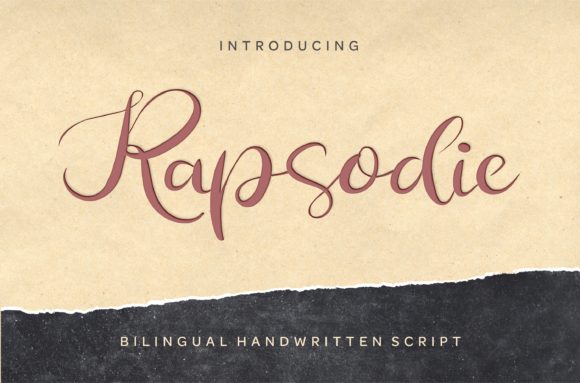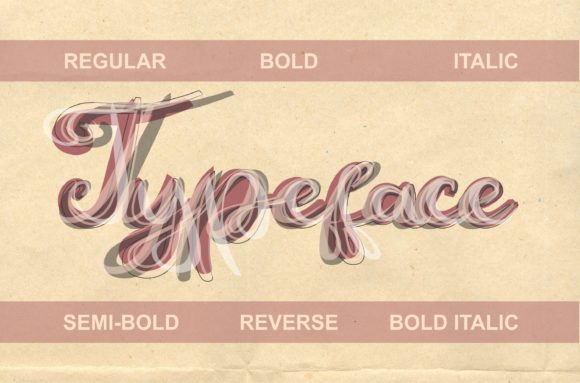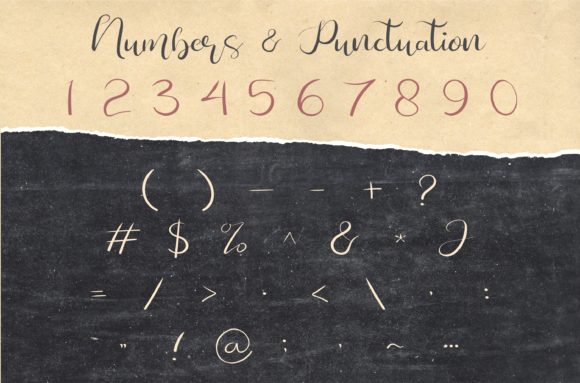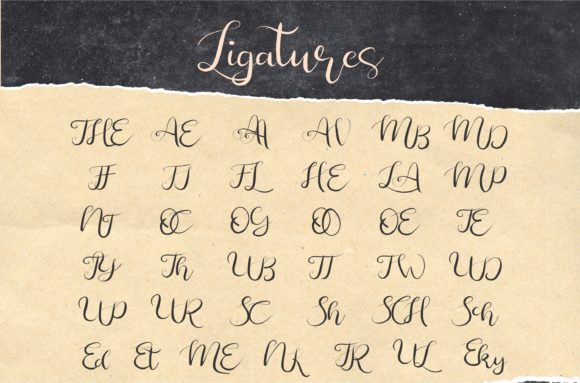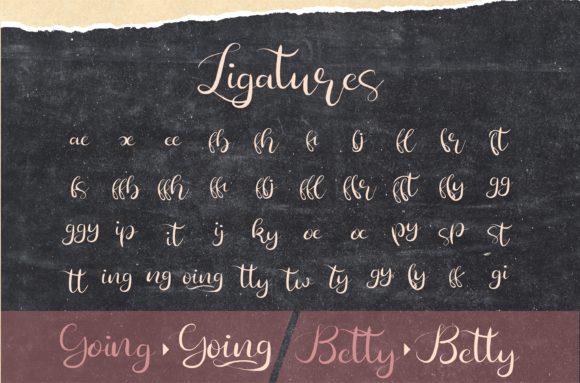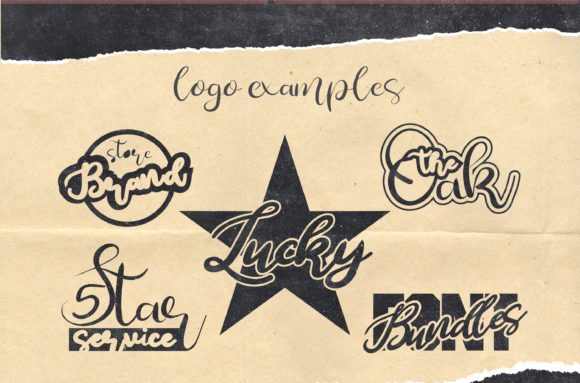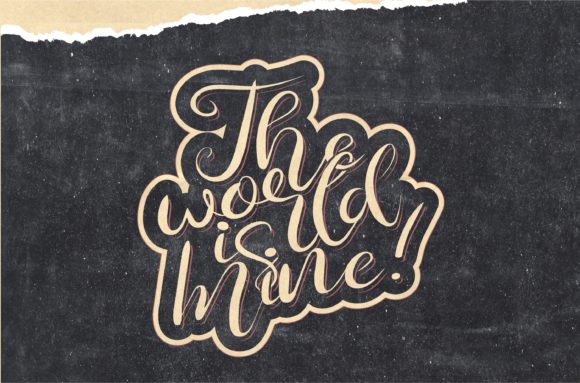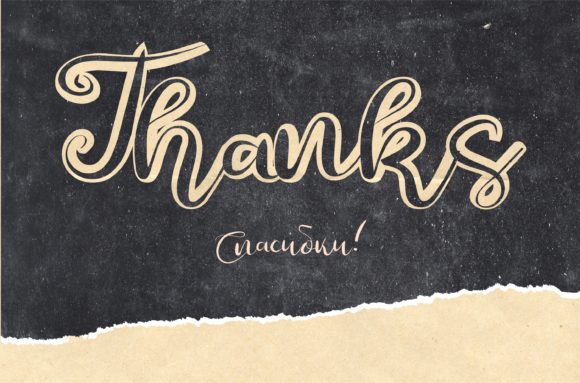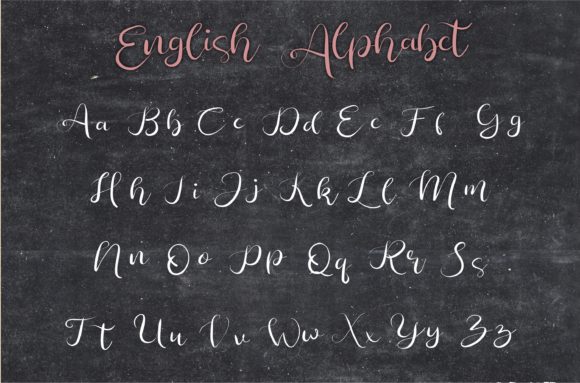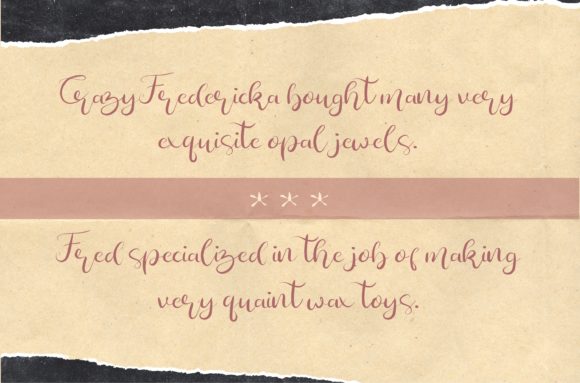
Rapsodie Font
About Rapsodie Font
The Rapsodie is a new and attractive script font. It includes multiple elegant styles which can be used to create luxurious designs.